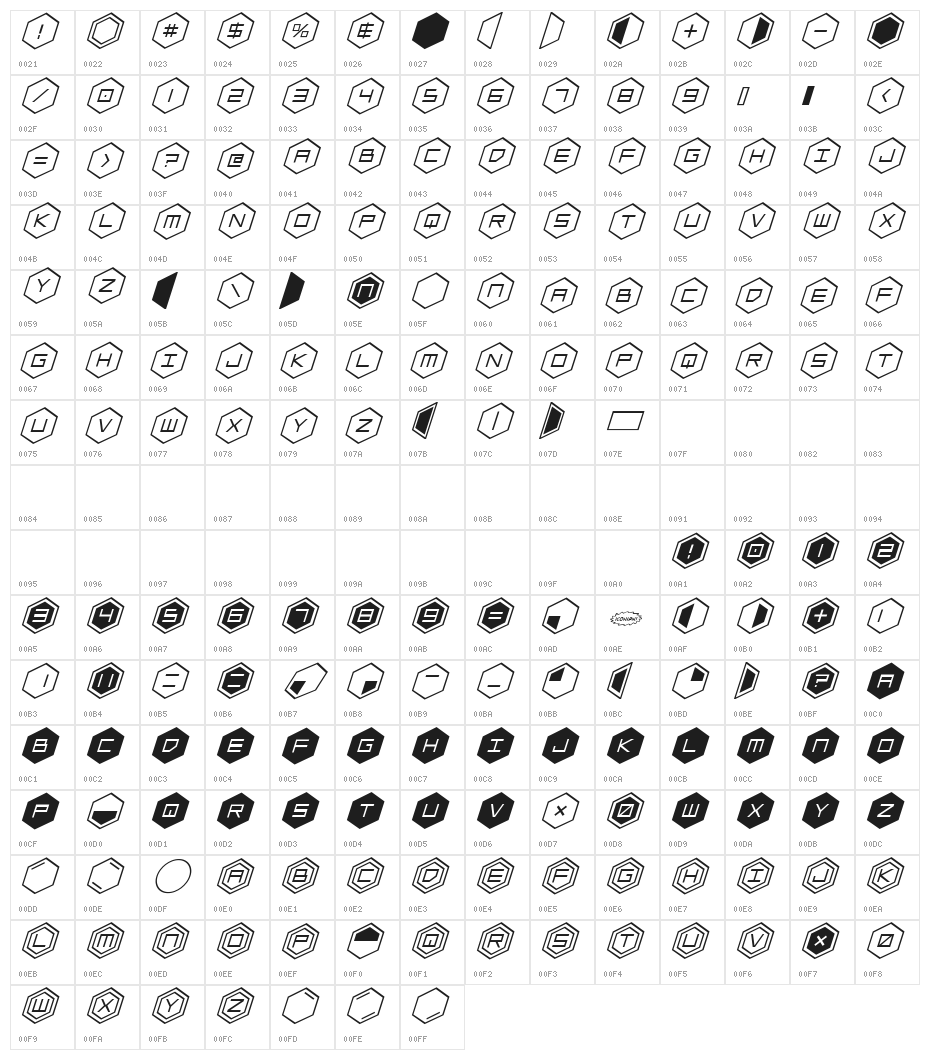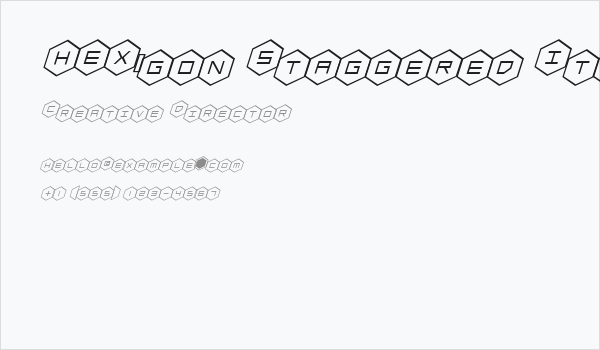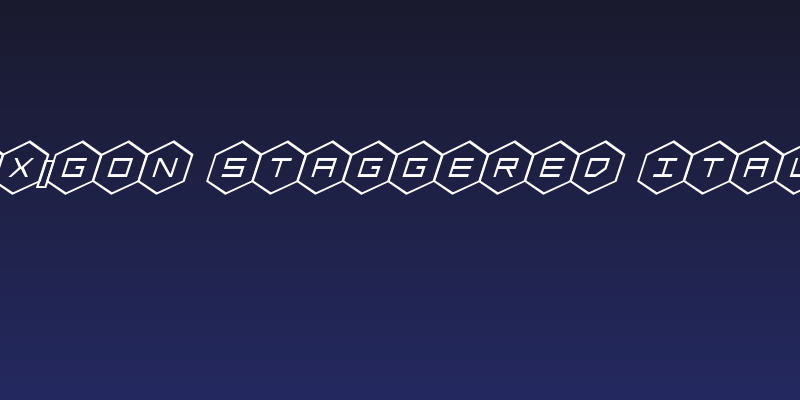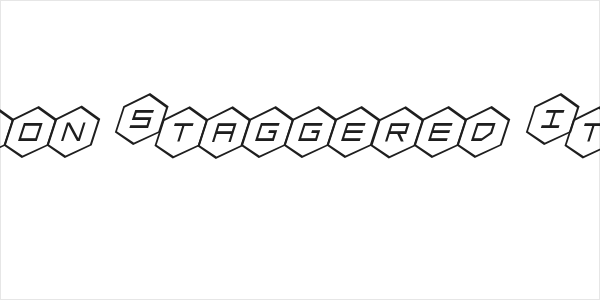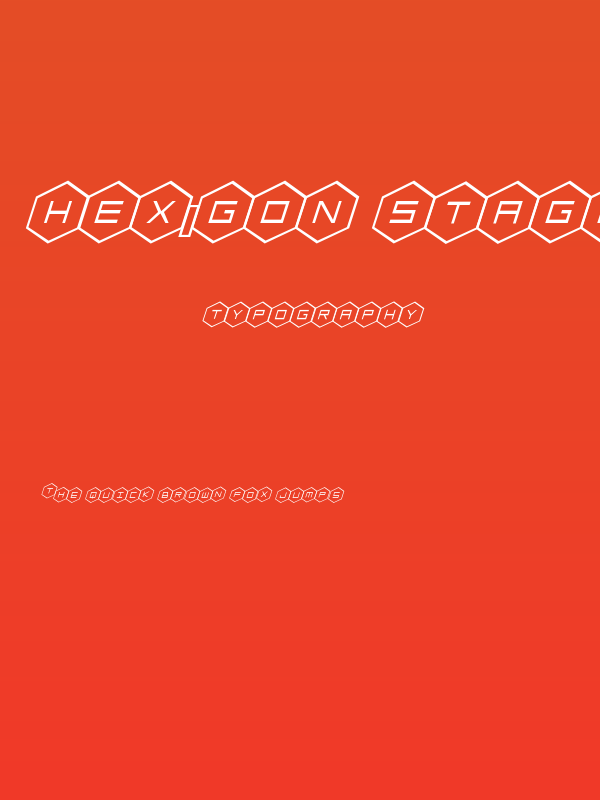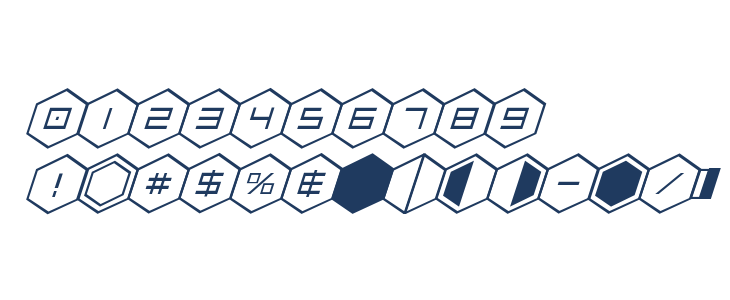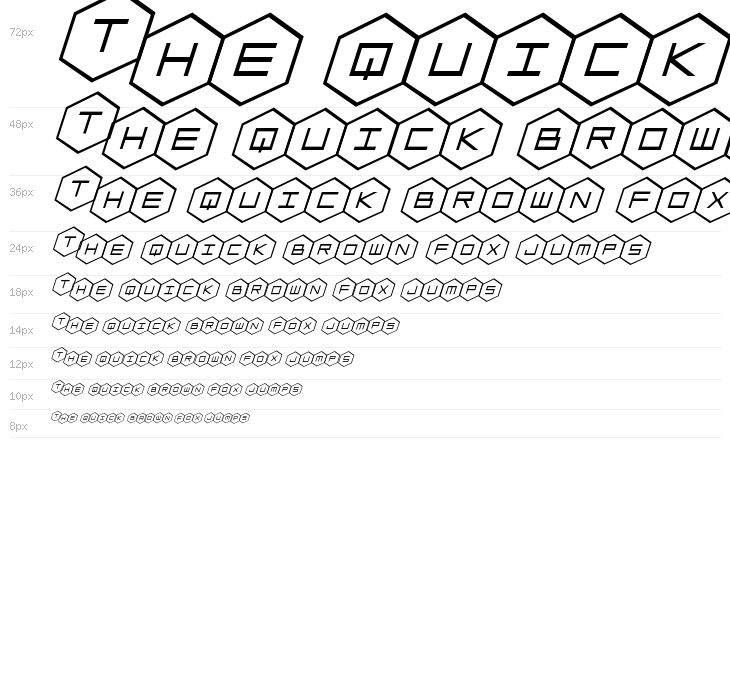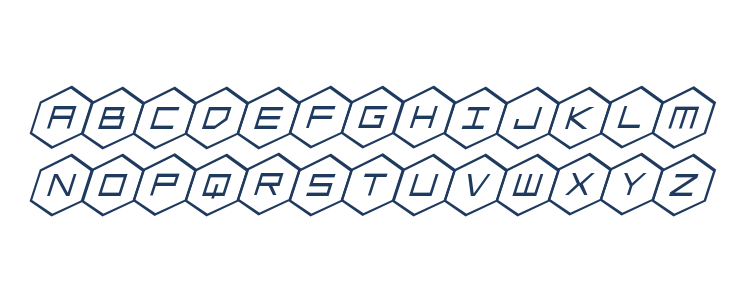
HEX:gon Staggered Italic Font
HEX:gon Staggered Italic Description
This font features a unique hexagonal design where each character is enclosed within a hexagon, creating a staggered and italicized appearance. The geometric style is consistent across uppercase and lowercase letters, as well as numbers and special characters. The lines are clean and sharp, giving a futuristic and modern feel. The italic slant adds a dynamic and forward-moving energy to the text, making it stand out. This font is ideal for projects that require a bold and distinctive look, combining both structure and creativity.